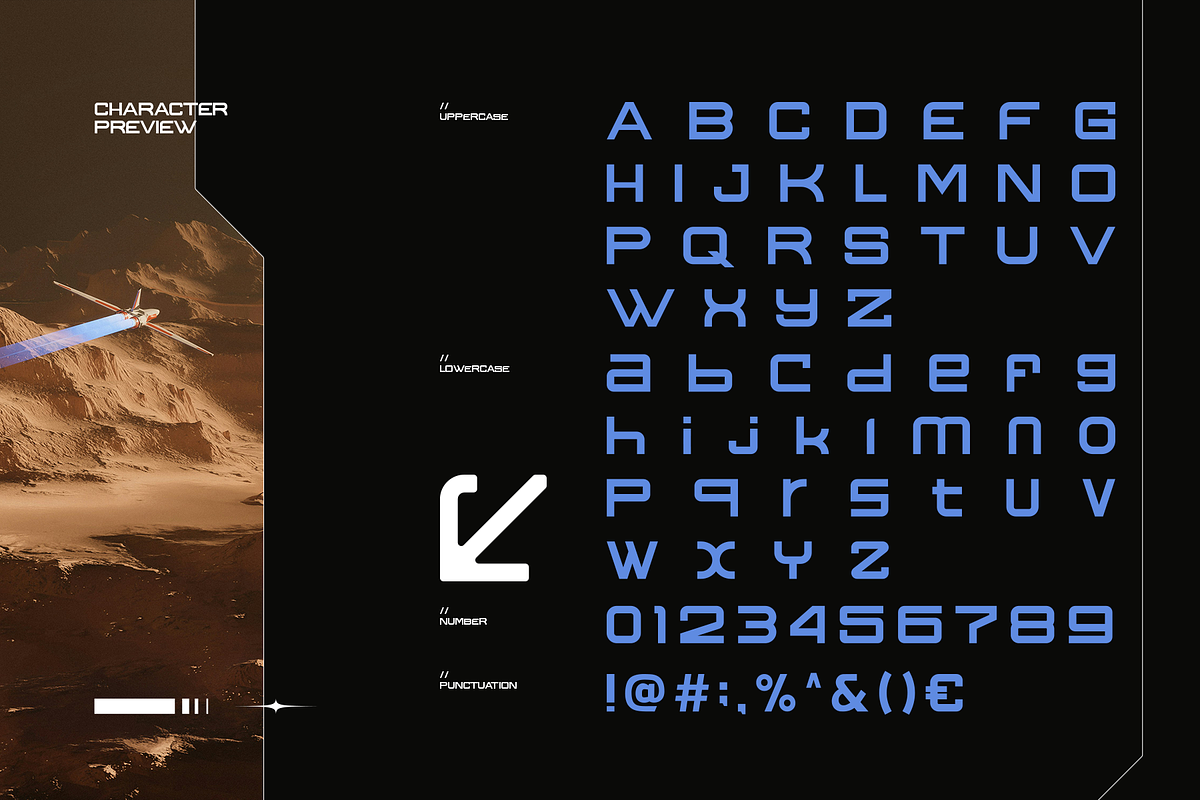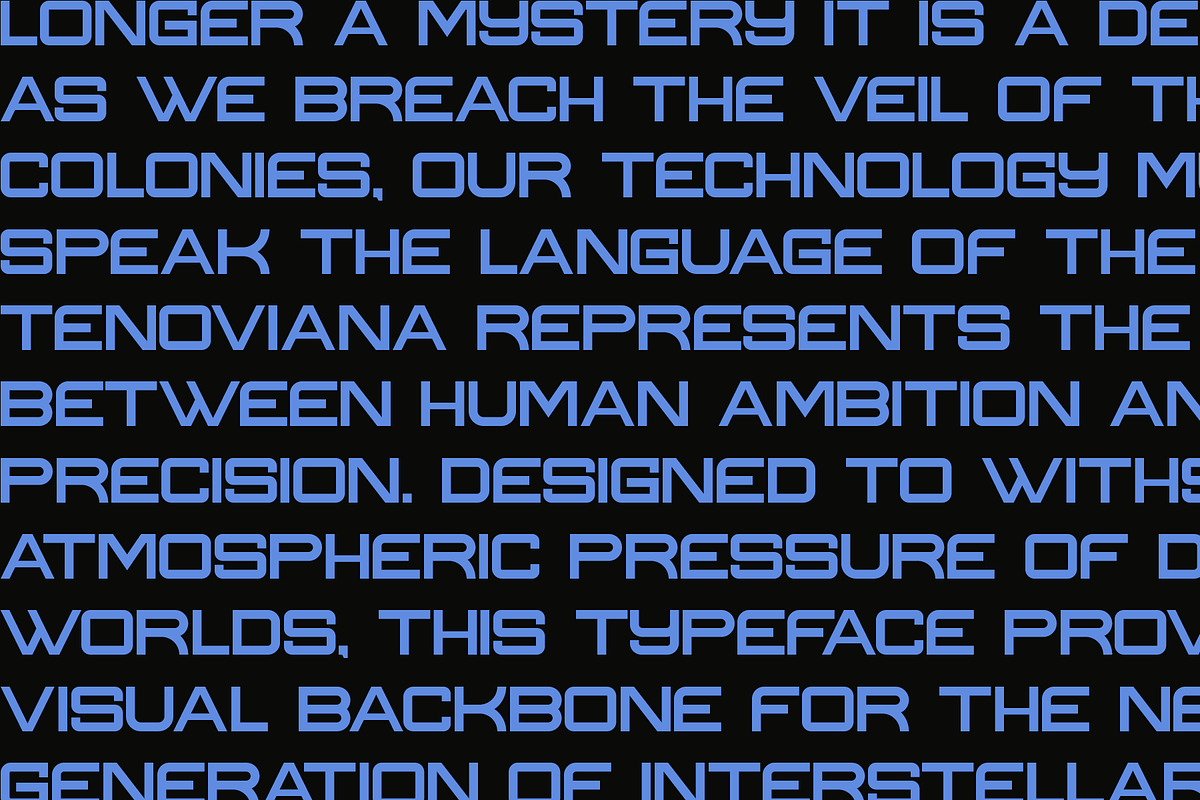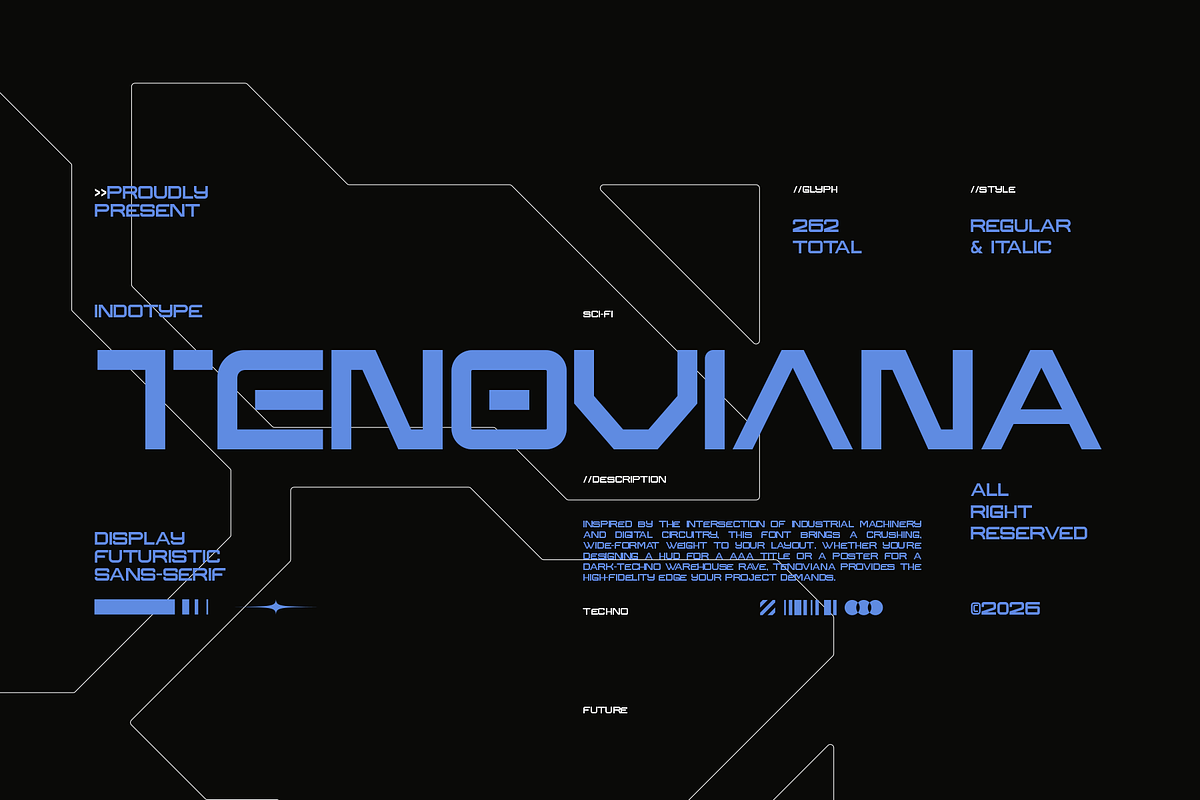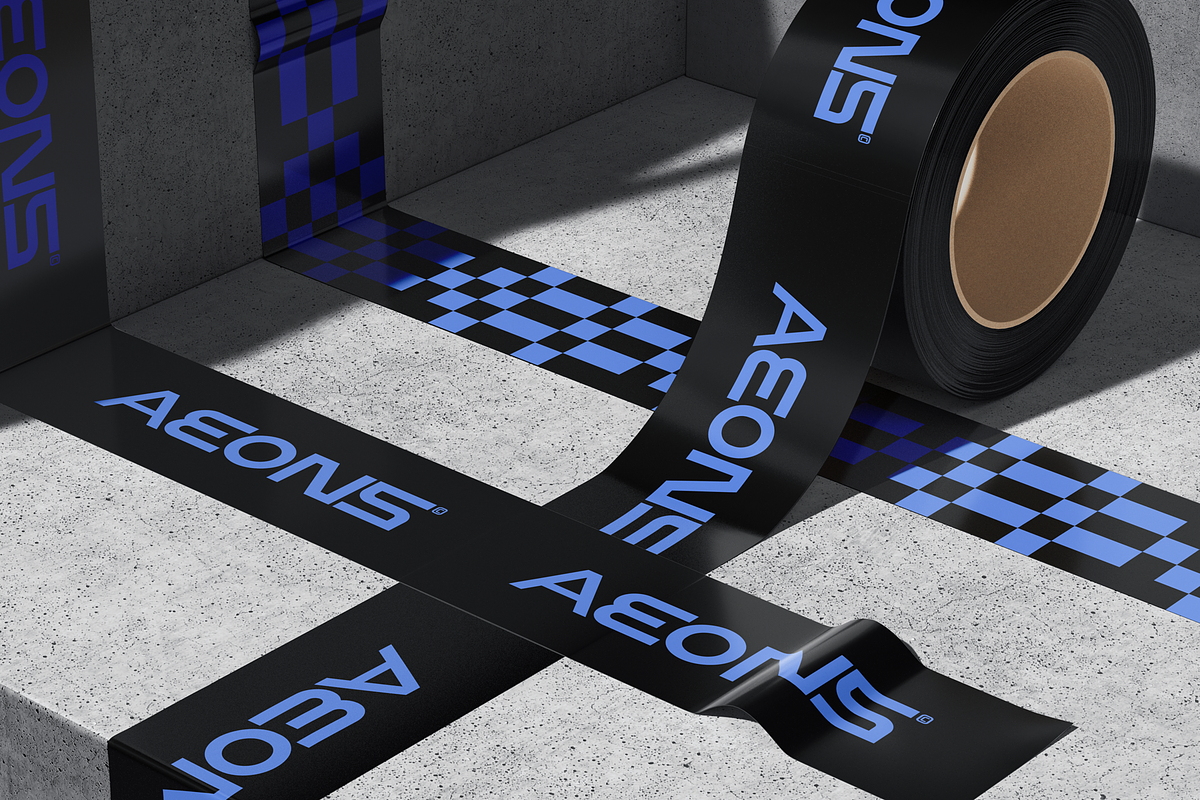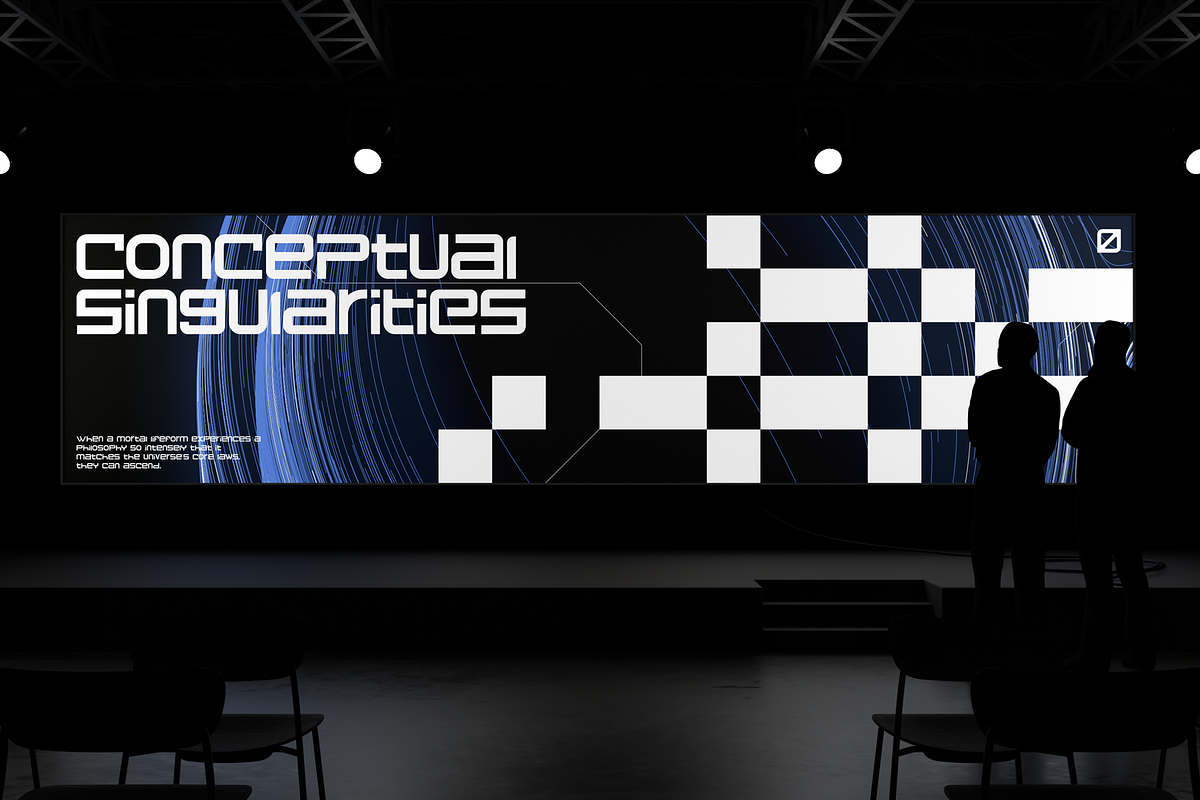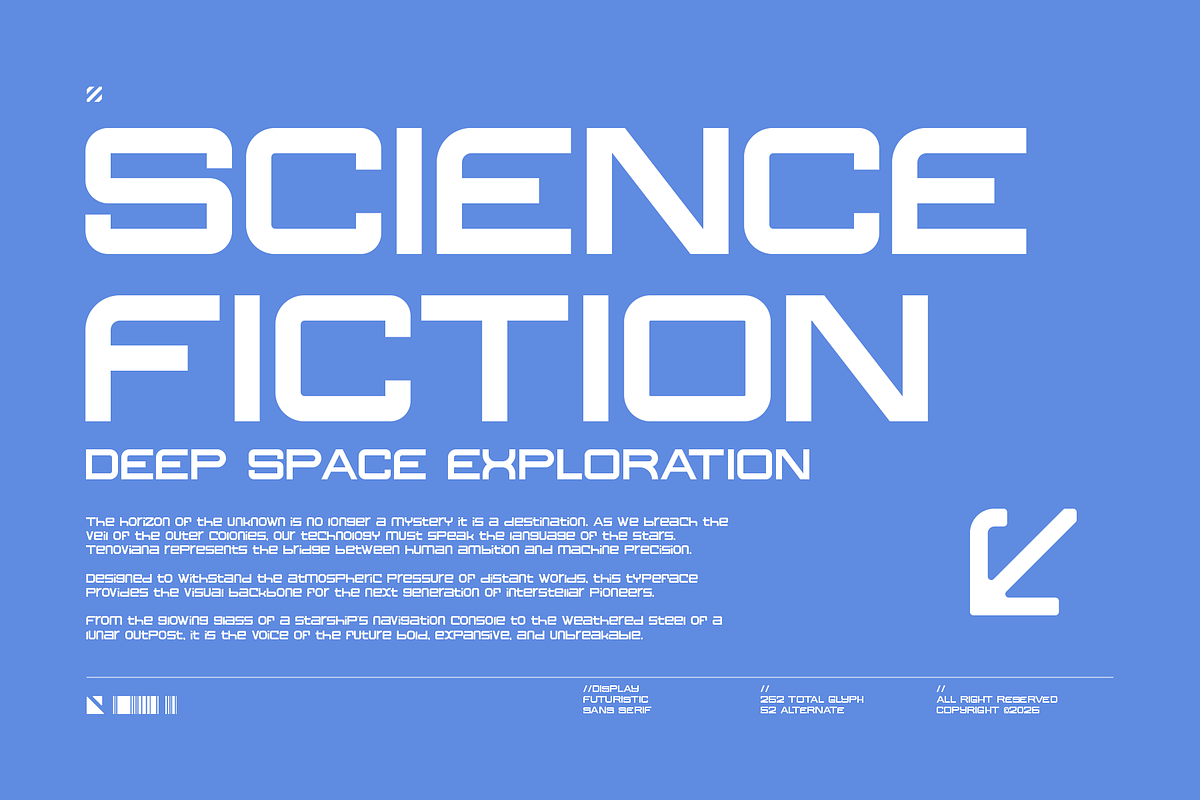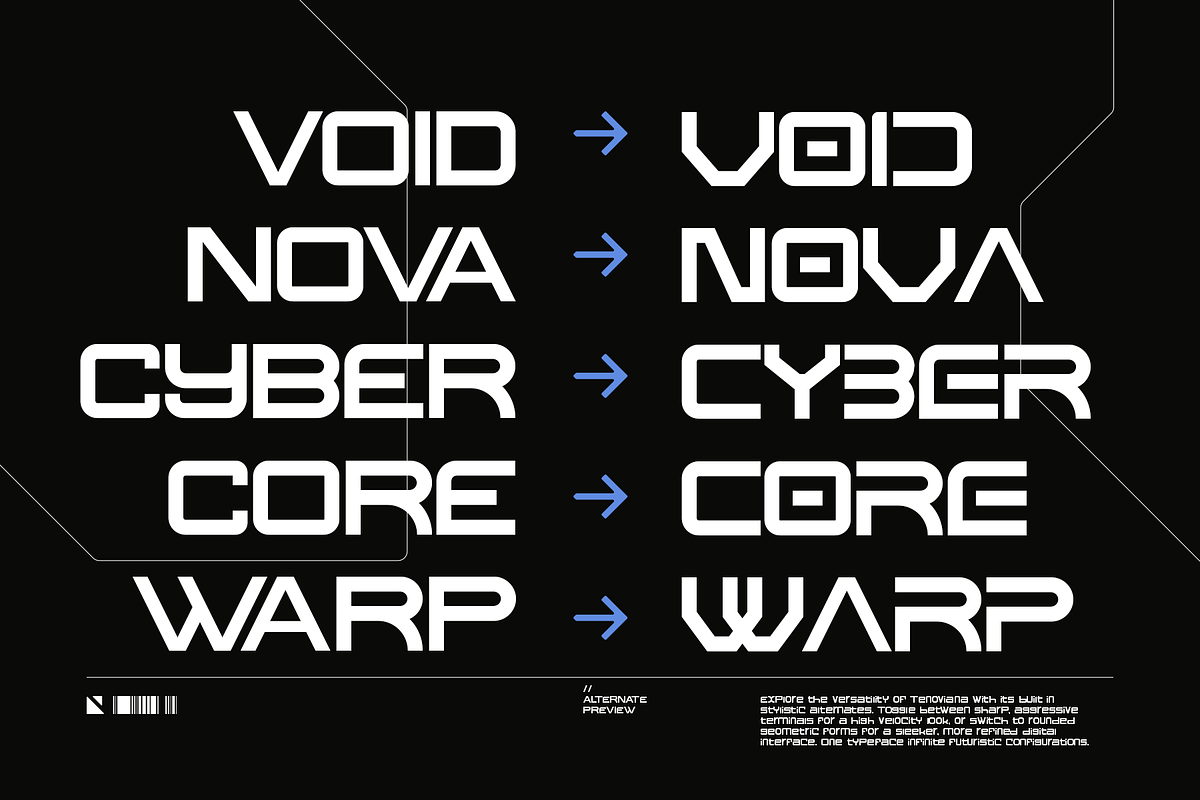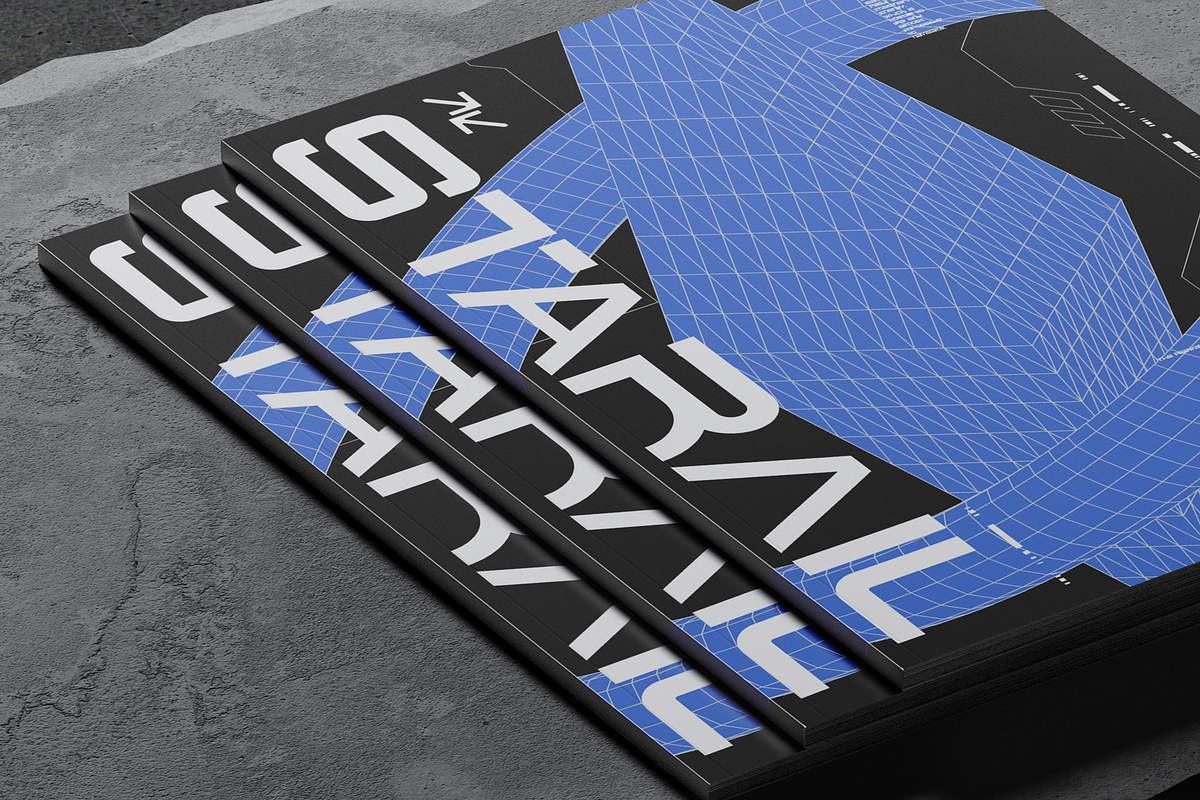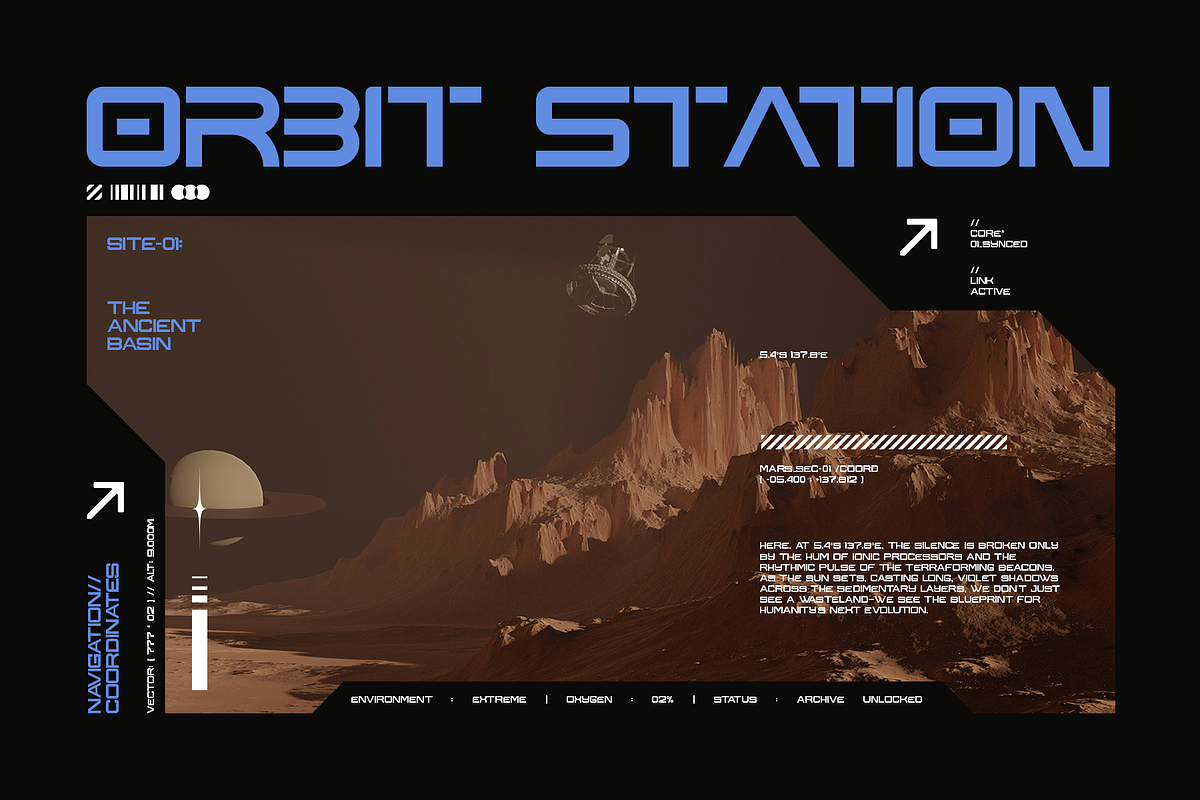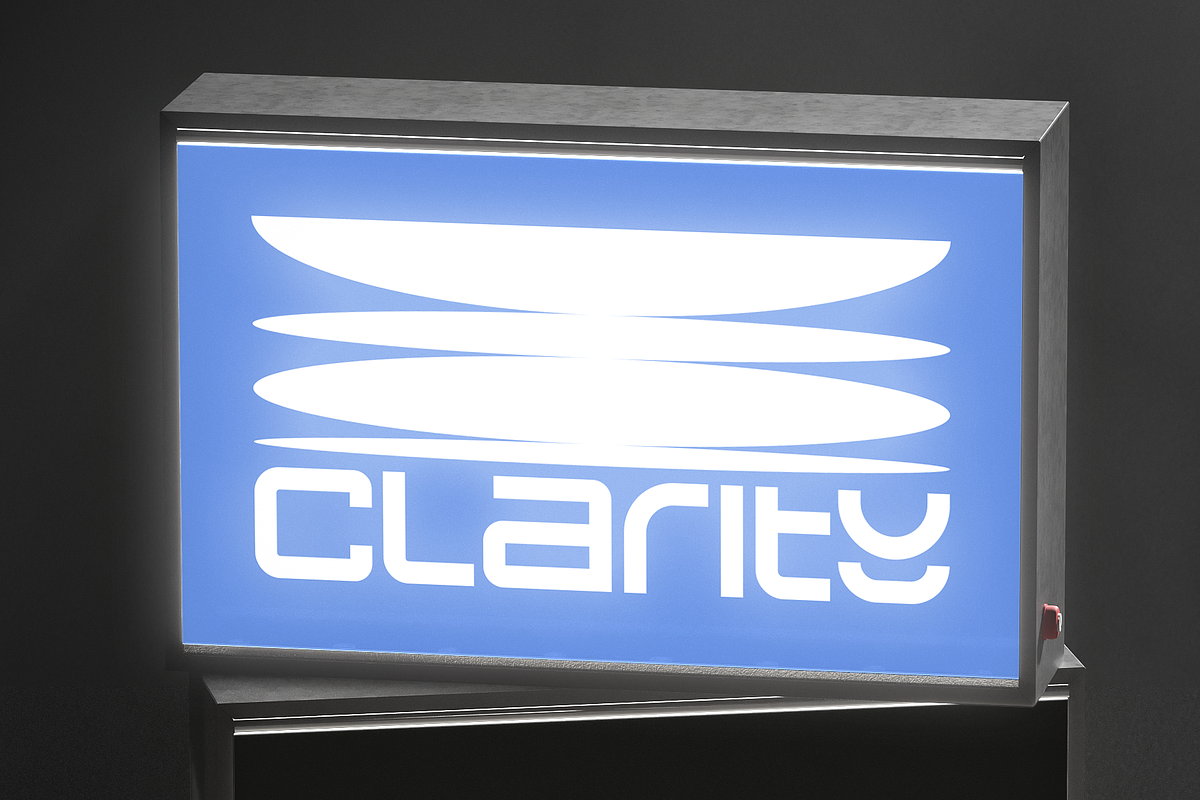
TENOVIANA - Sci-Fi Display Sans
Tenoviana is a crushing, high-fidelity display font forged in the digital underground. It channels the raw, immersive energy of dark techno, warehouse raves, and dystopian sci-fi, blending sharp geometric construction with a gritty, high-voltage aesthetic. This is not a font of the bright future—it's the typography of the interconnected, high-contrast now, built for projects that demand an uncompromising, cybernetic edge. With 262 total glyphs available in both a solid Regular and a slanted, dynamic Italic style, Tenoviana offers the tools to craft immersive identities for music, gaming, and tech. It provides the stark, authoritative voice needed for experimental music labels, cyberpunk game interfaces, techwear branding, and any visual project operating at the intersection of sound, data, and shadow.
- Ideal for: Techno & EDM Music Art, Cyberpunk Game UI, Techwear & Streetwear Branding, Sci-Fi Film Titles, Experimental Media, Futuristic Editorial.
- Classification: Sans-Serif, Display, Futuristic, Techno, Sci-Fi.
- Attributes: Crushing, Gritty, Cybernetic, High-Contrast, Authoritative, Immersive, Dark.